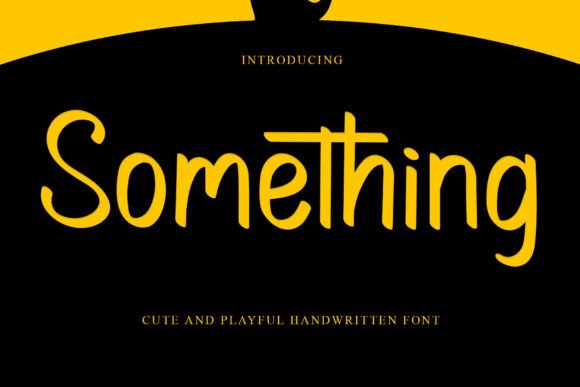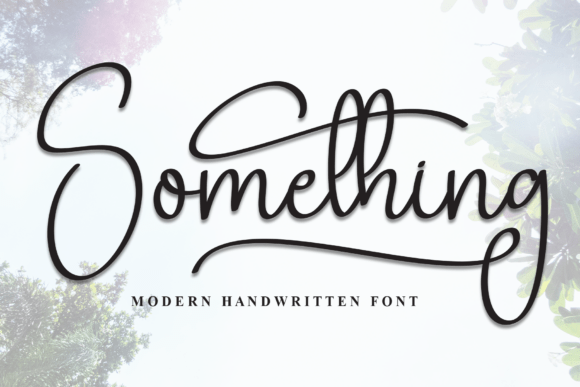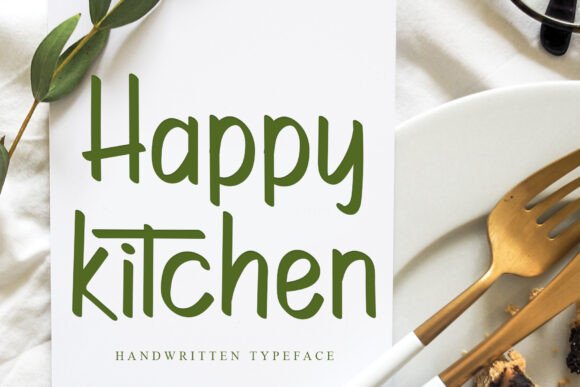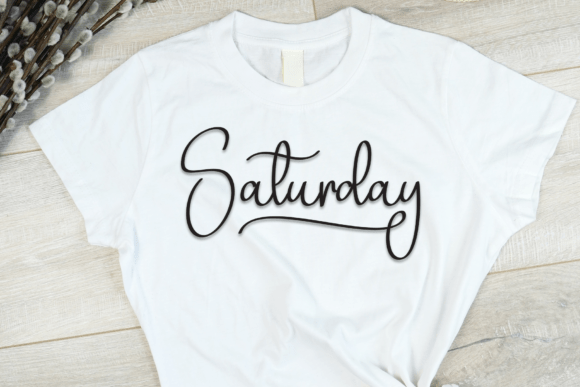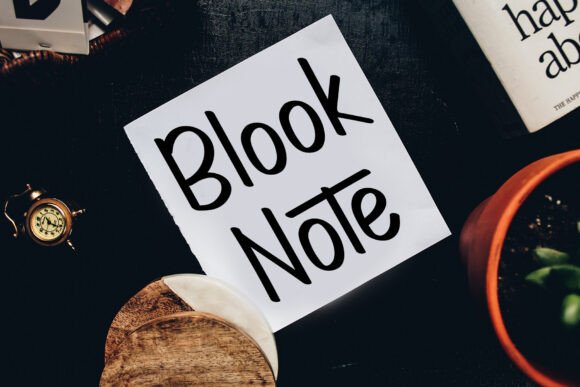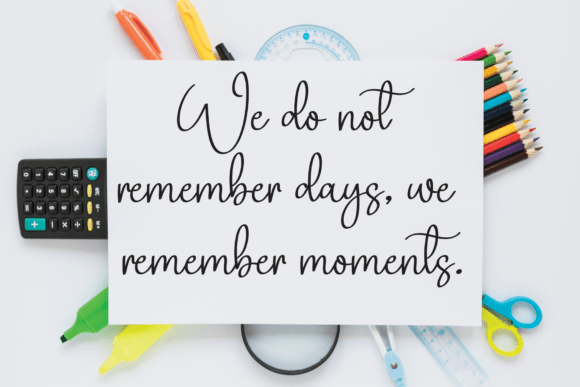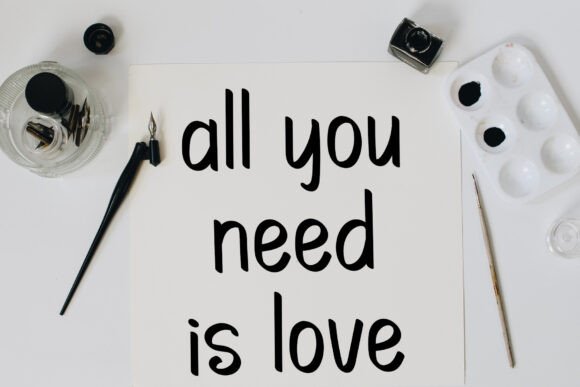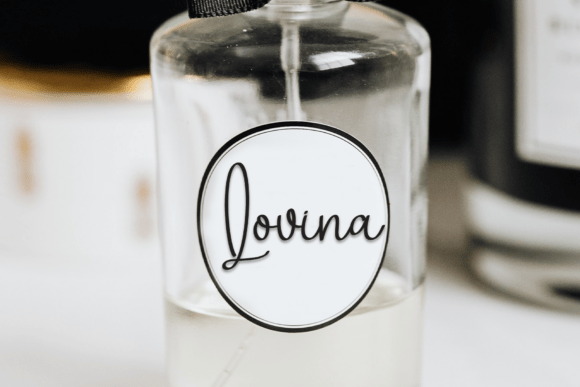
Something Font
About the Something Font
Introducing the Something Font, a beautifully crafted typeface designed to elevate your creative projects. Something is a lovely and timeless handwritten font. It is the best choice for creating eye catching logos, branding and quotes. Every letter has a unique and beautiful touch, which will make your design come alive!
Something Font Usage Examples
Something Font Example